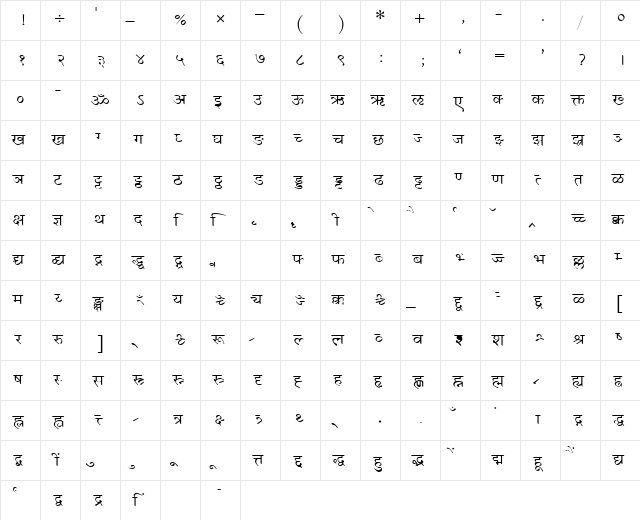
AkrutiSanPriya Normal
Design Context for AkrutiSanPriya Typeface
AkrutiSanPriya is a composed and adaptable typeface that performs quietly and consistently across a wide range of design contexts.